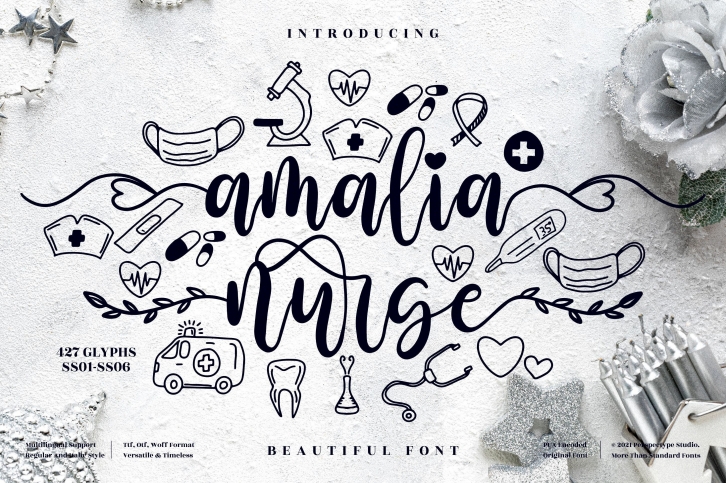
amalia nurse is a great font that was designed by Perspectype Studio. Imagine the amount of combinations you can create using this font! The archive is 17.26 MB and it was released on April 9, 2021. amalia nurse looks beautiful on wedding invitations, greeting cards, logos, posters, labels, t-shirt designs, logos, business cards and is perfect for use in ink or watercolor works, fashion, magazines, packaging and food menus, children's books and more!